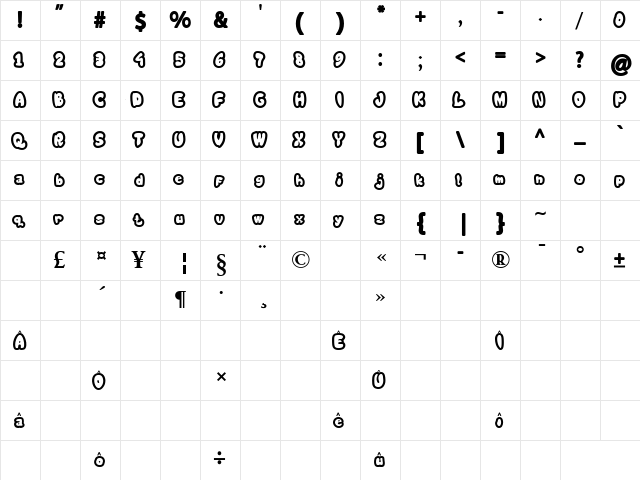
Bublo Bold
Design Context for Bublo Typeface
Bublo is a composed and adaptable typeface that performs quietly and consistently across a wide range of design contexts. The heavy weight commands attention and anchors typographic hierarchies.